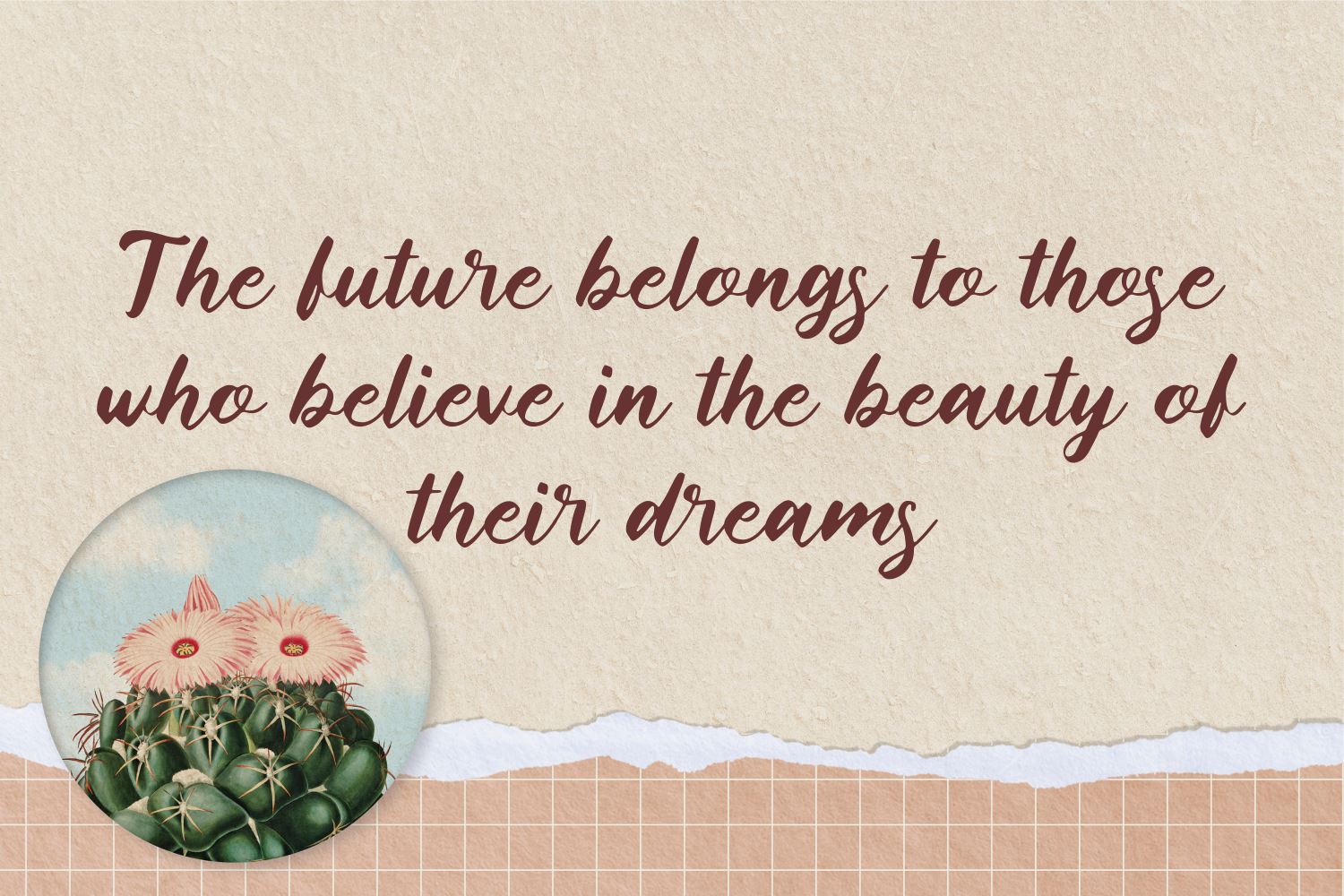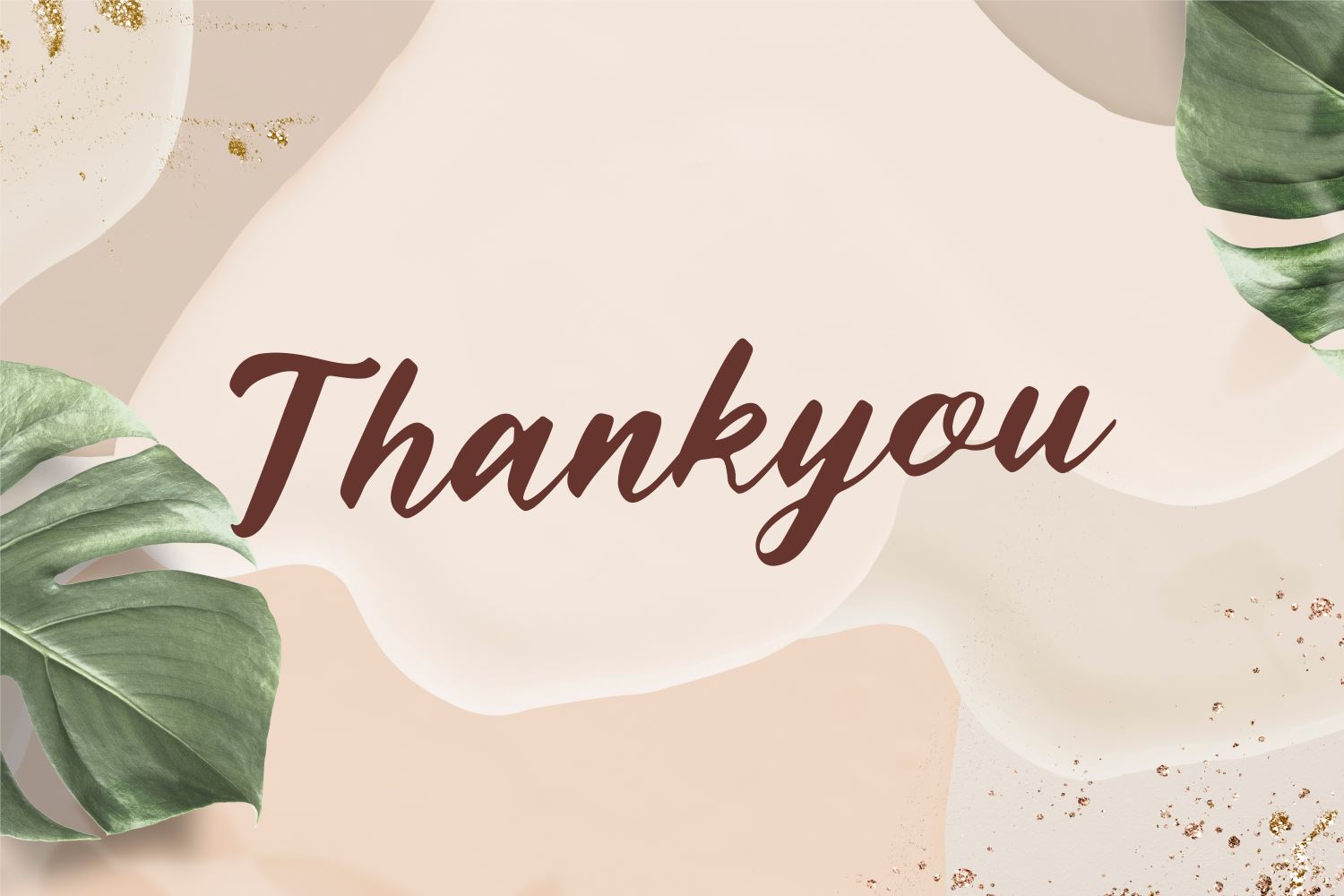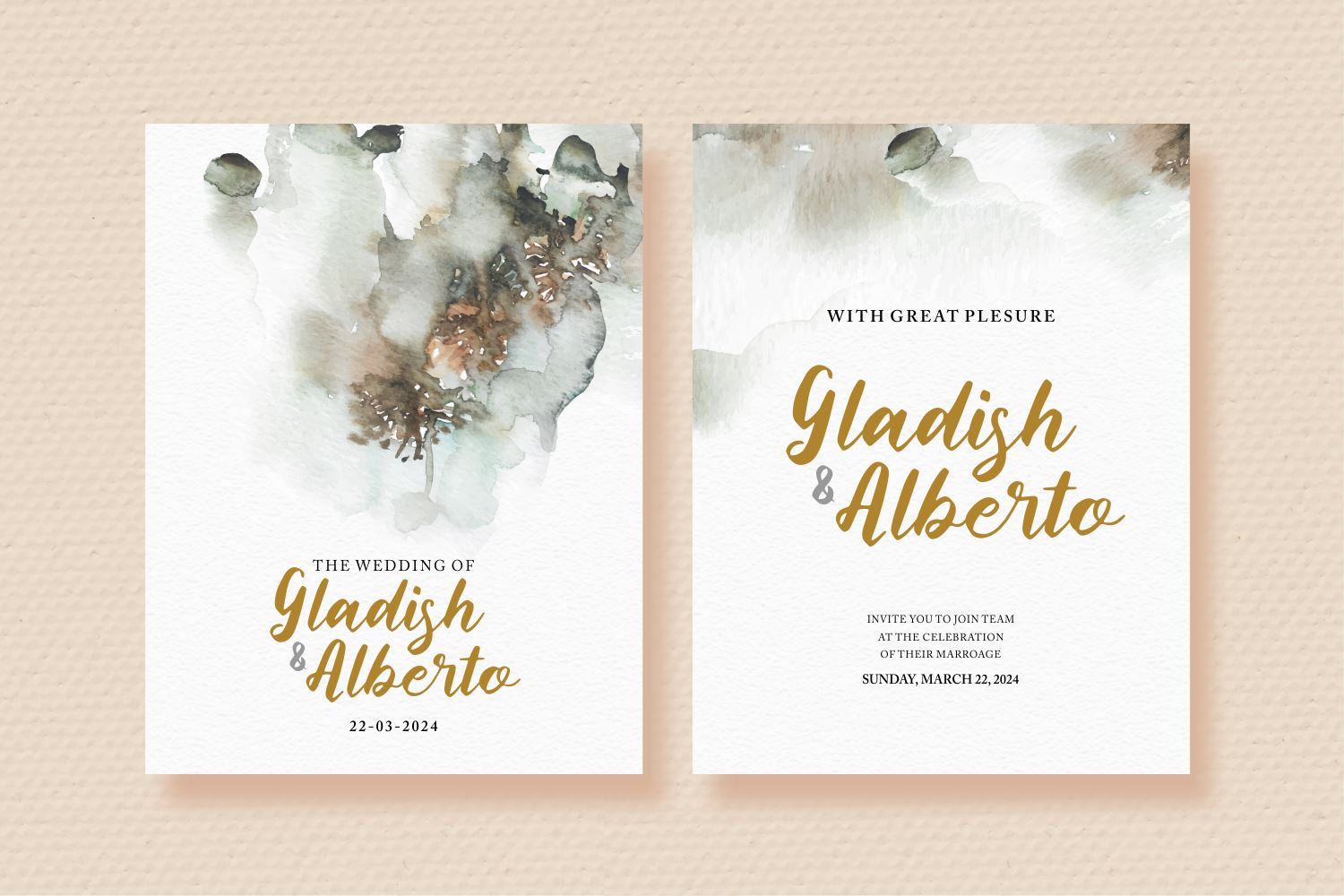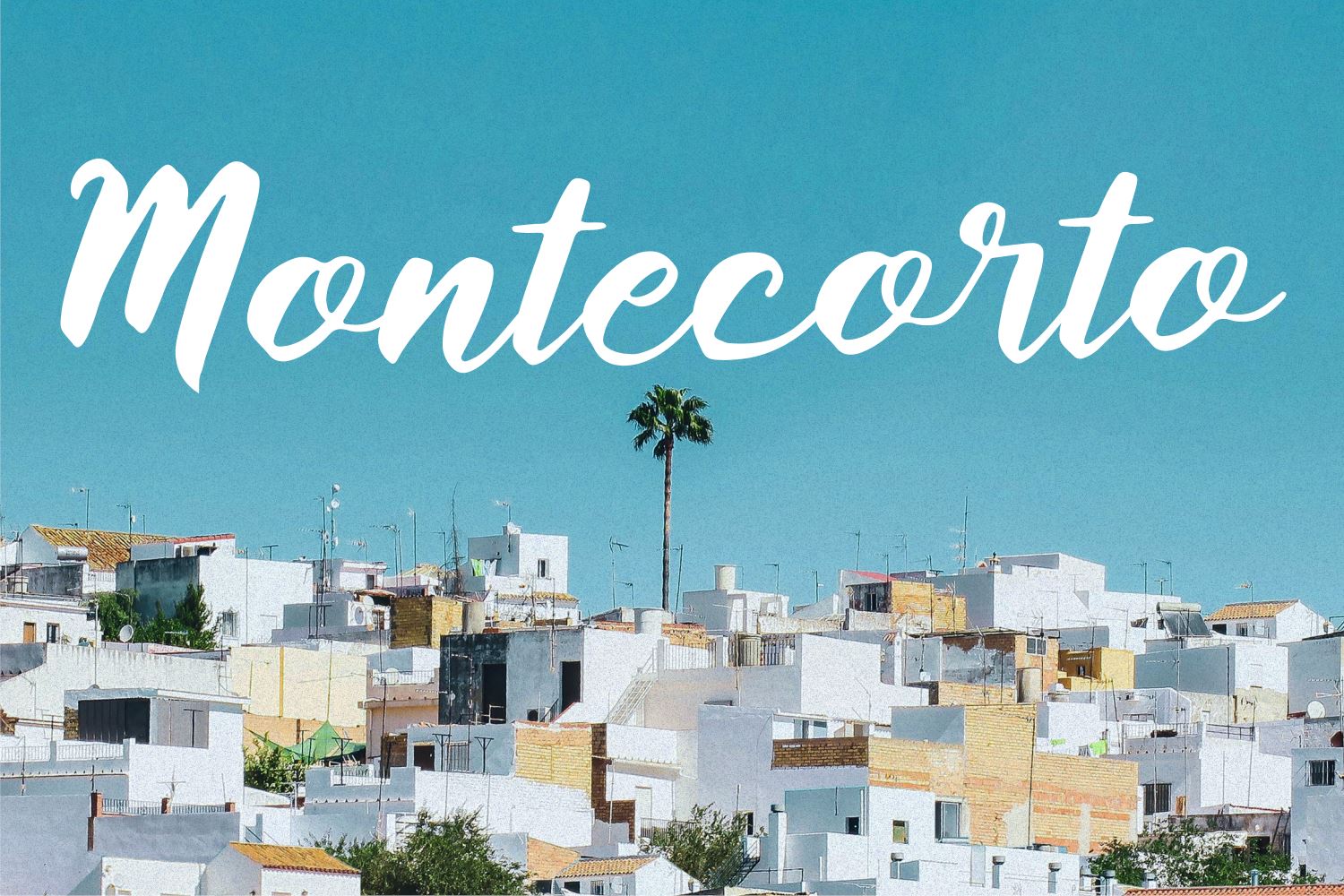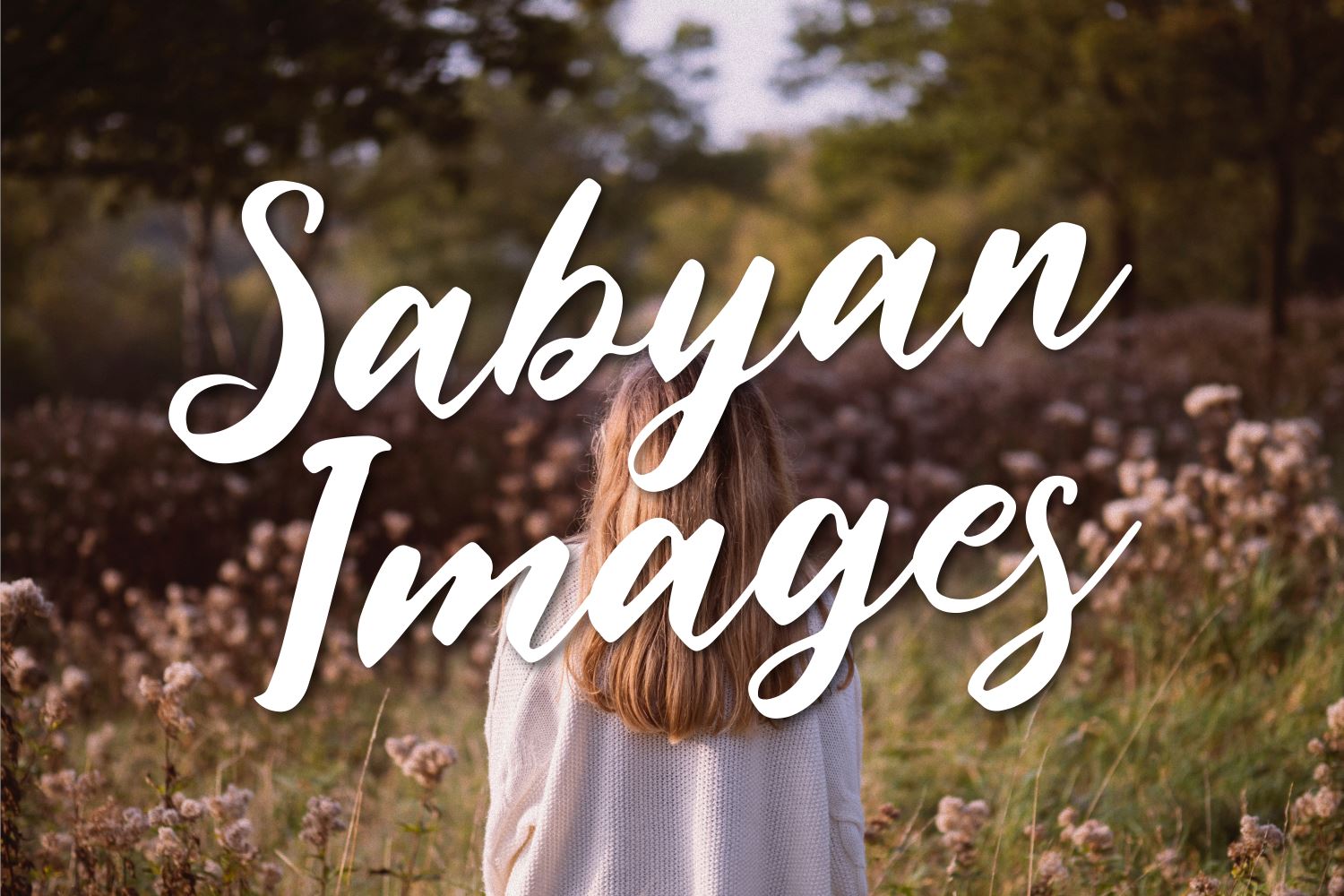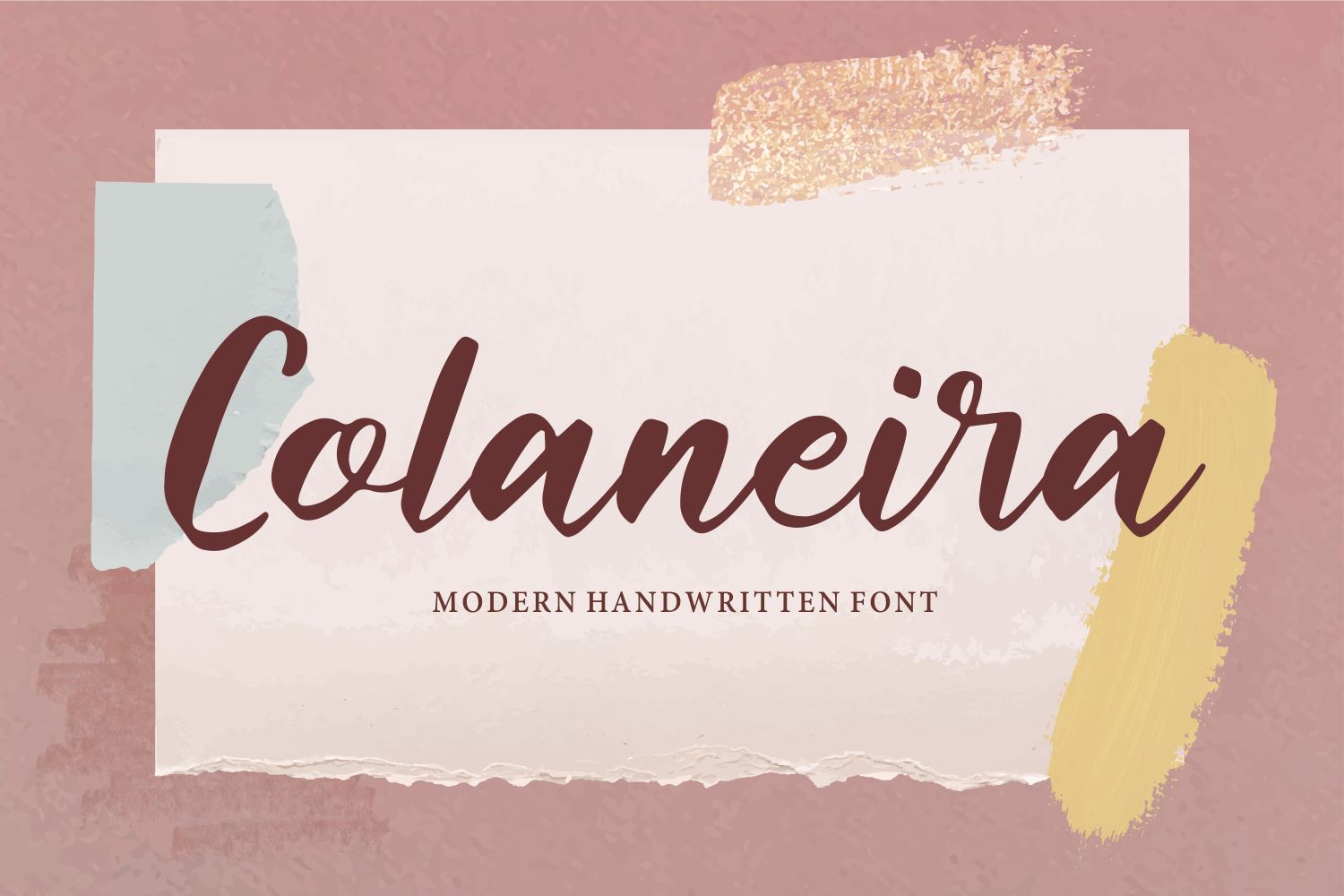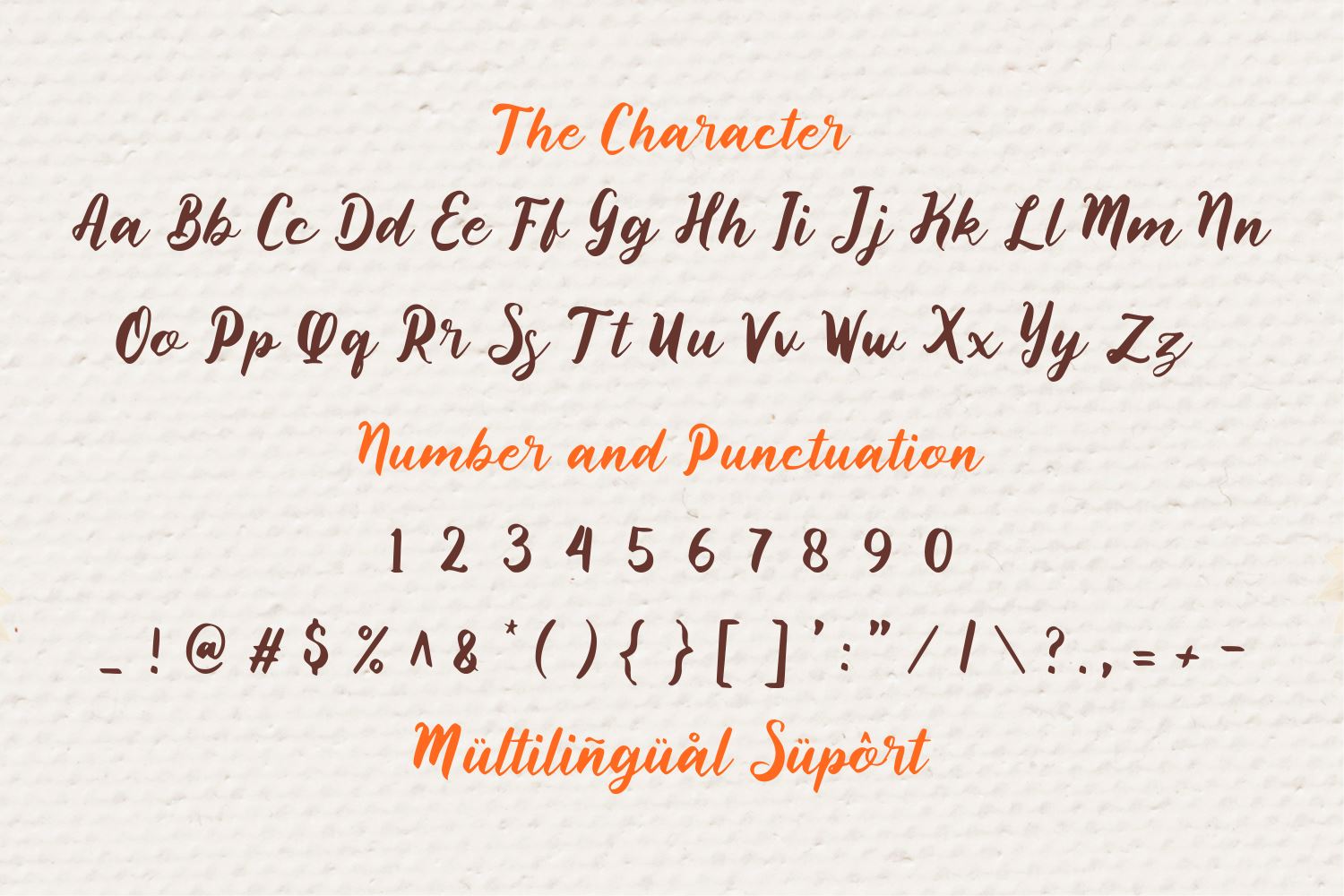
Colaneira
About Colaneira
Introducing Colaneira Font by Forberas Club Colaneira is a Modern Handwritten Font. Colaneira is perfect for book cover, product packaging, branding project, megazine, social media, kisd book fonts, or just used to express words above the background. This font includes TTF and OTF, This font also multilingual support.